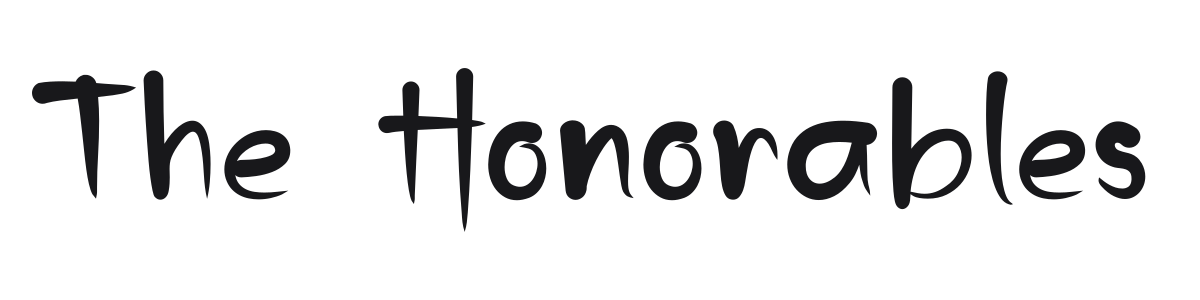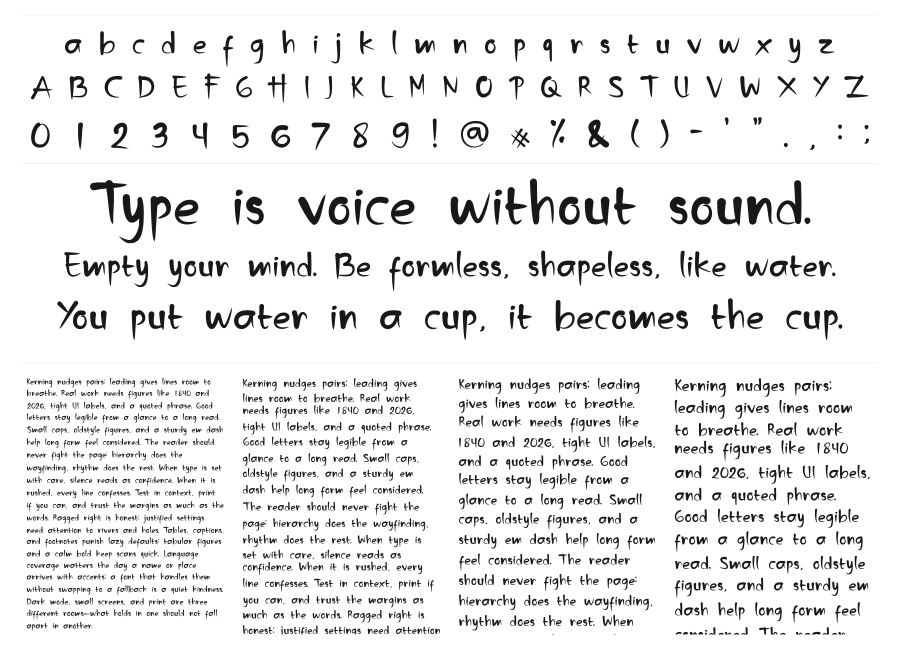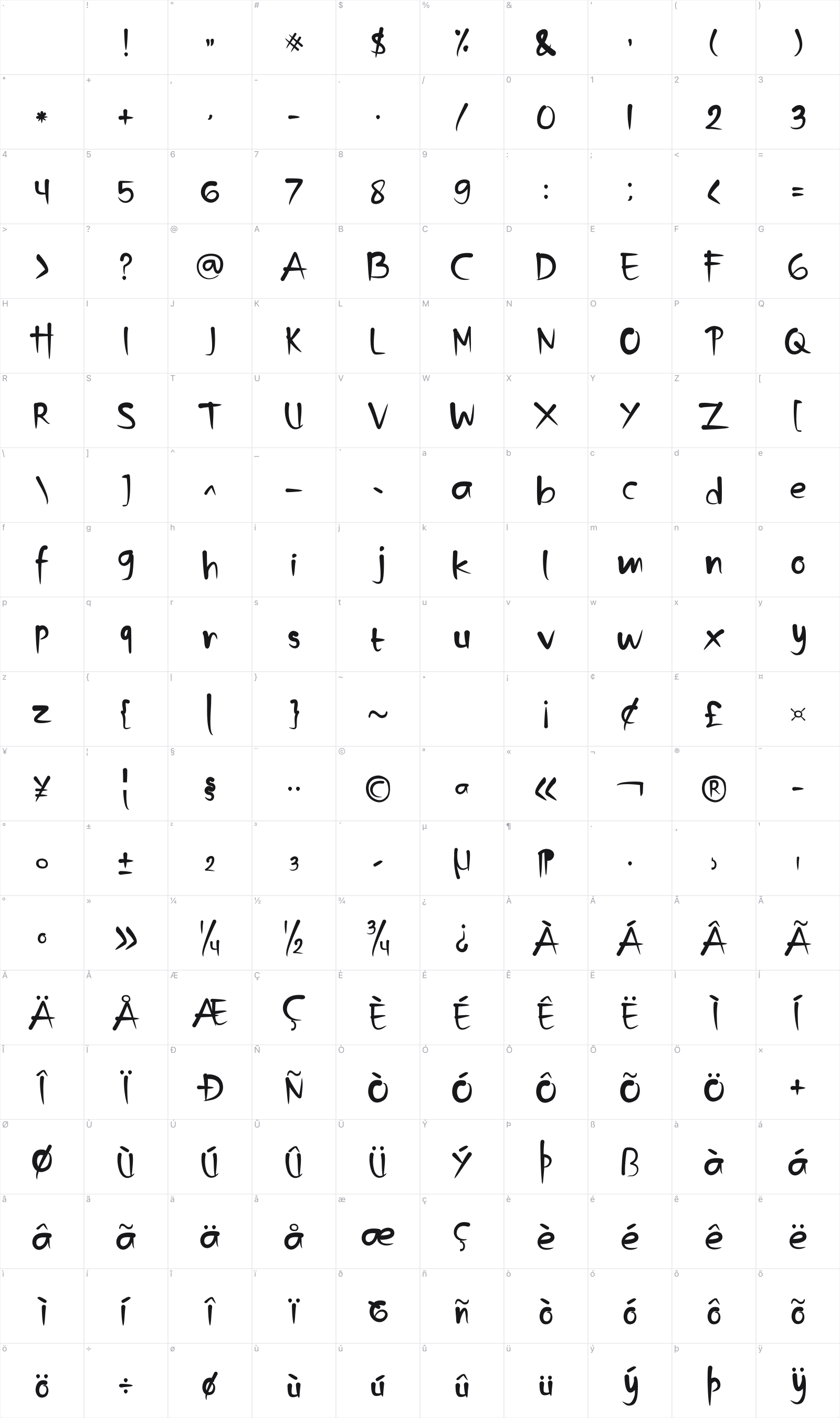
The Honorables
The Honorables is a bold upright handwritten script with the loose, natural rhythm of a marker pen. Strokes vary in weight organically, and slight baseline irregularities keep it feeling genuinely hand-drawn rather than mechanical. It brings warmth and personality to logos, packaging, and casual headline work.